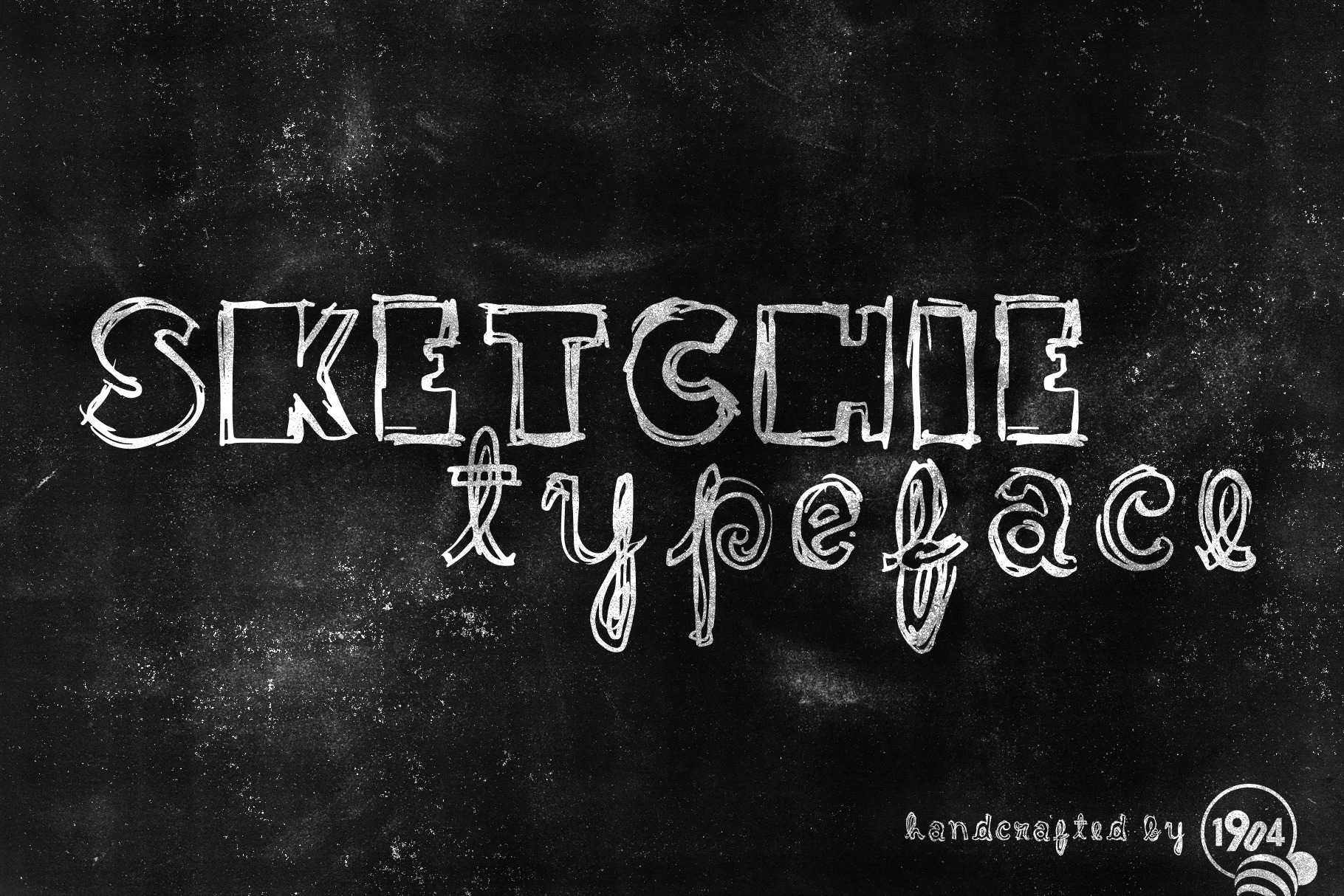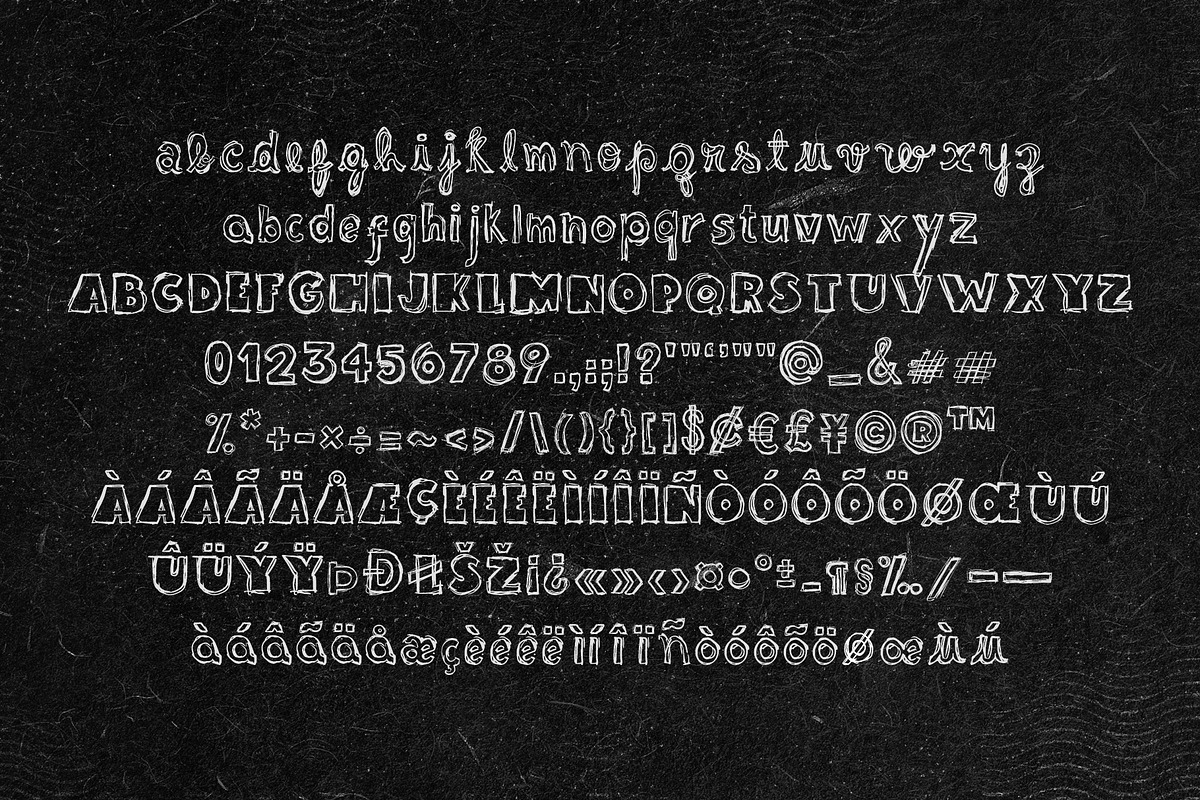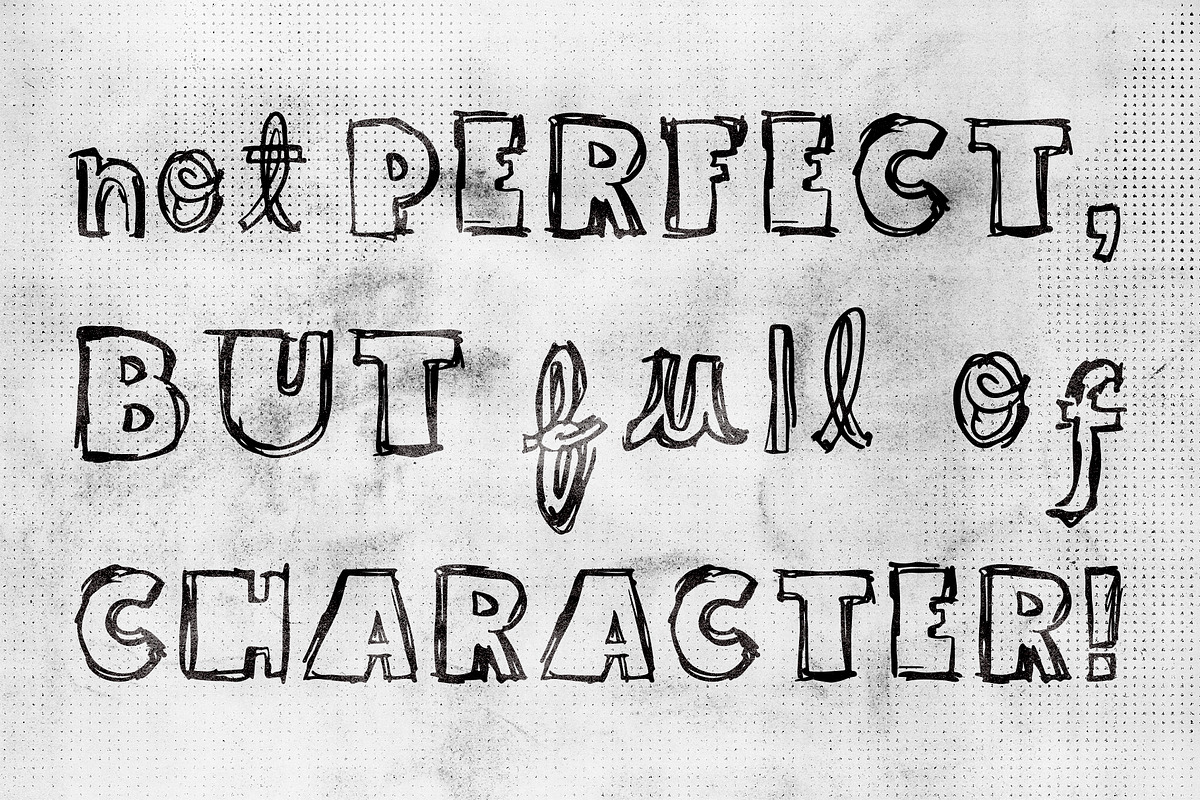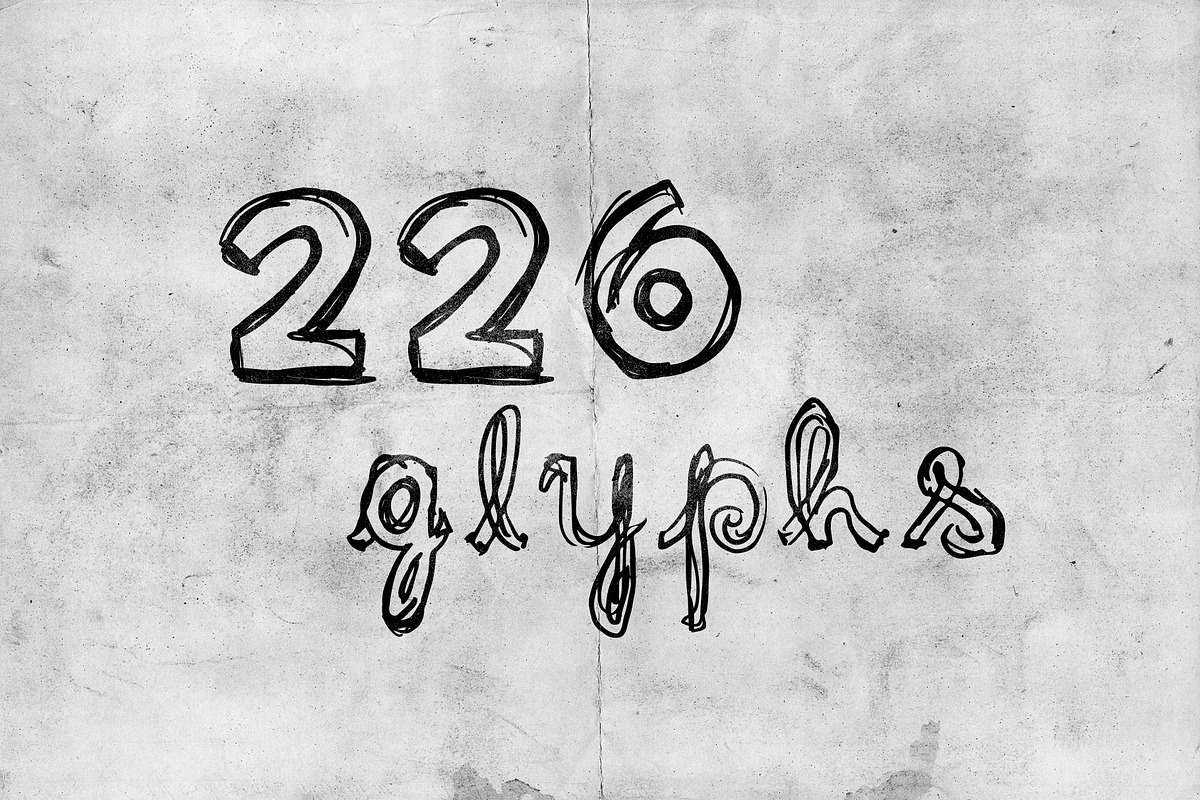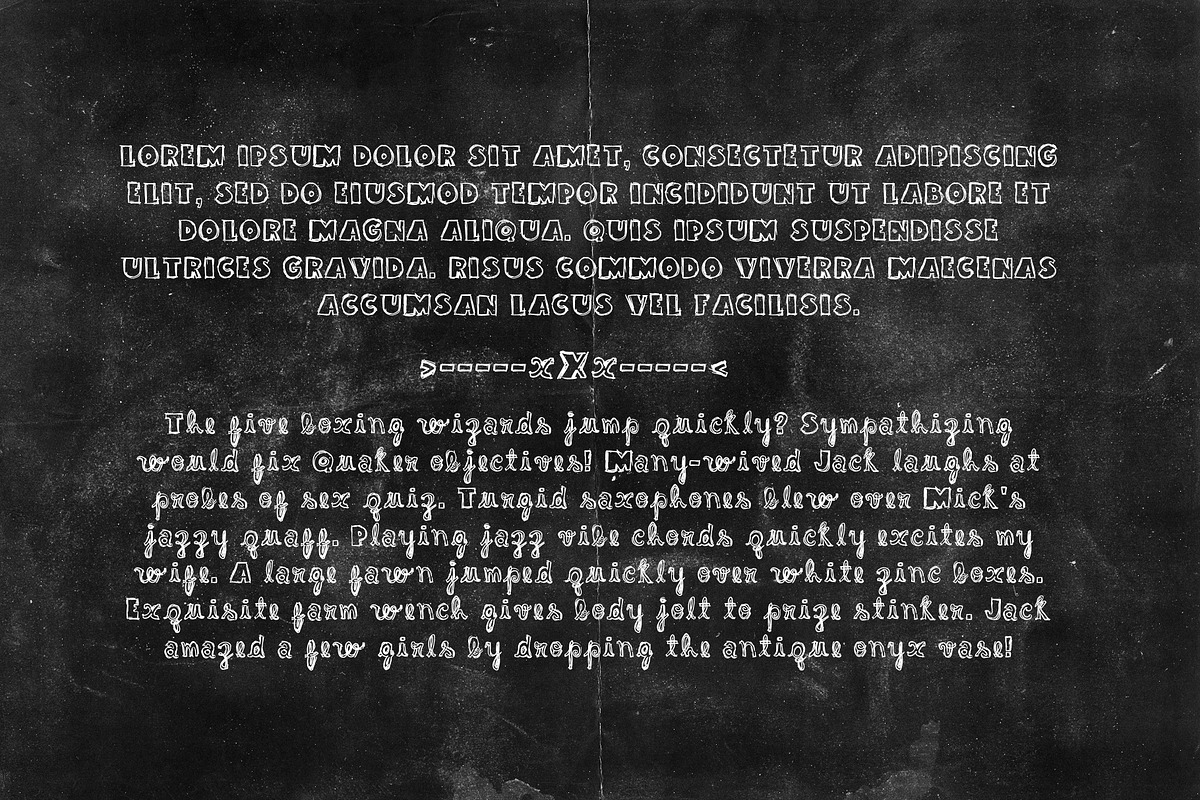
Sketchie Typeface
Sketchie is an OTF script font that comes with uppercase, lowercase, numerals, and punctuations (226 glyphs). Perfect to be used on posters, illustrations, and print materials in general.